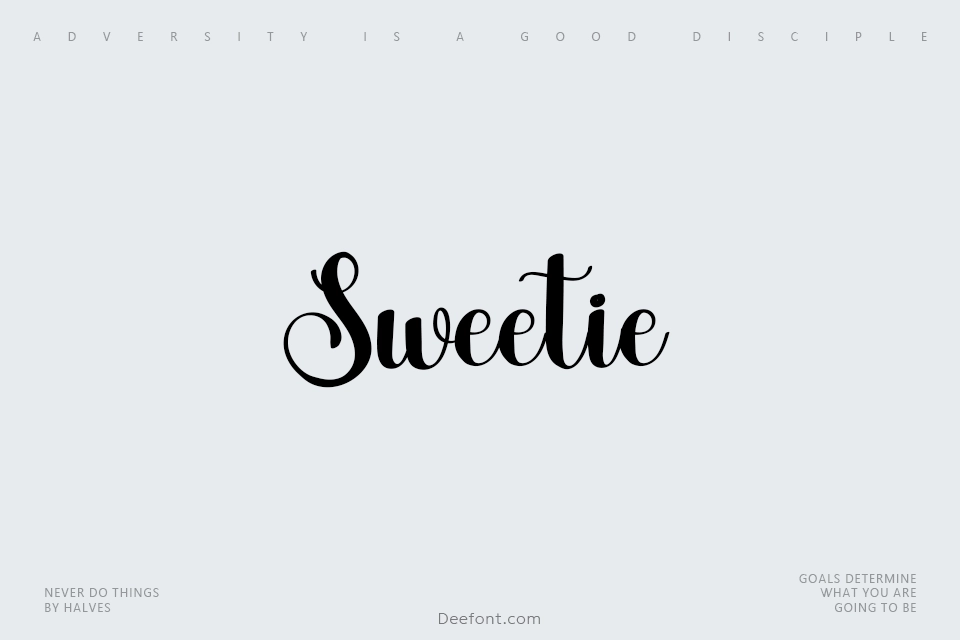
Sweetie Font
The font with a unique and elegant design style. A font suitable for all aspects of design and writing suitable for Instagram, quotes, clothing design, clothing, apparel, logo design, children’s clothing, t-shirts, weddings, gifts, parcels, youtube banners and more. By using this font your business will stand out in the market. Apart from that, this font is simple, modern style font, handwritten and easy to use with all your needs. With this latest font model, your brand and font business will move forward.